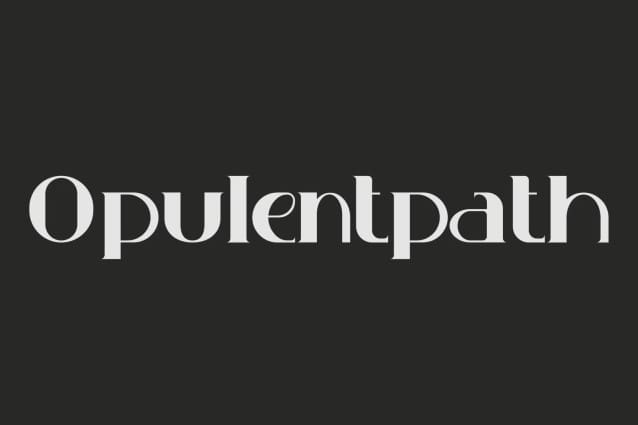
Opulentpath Font is a luxurious, specially crafted font inspired by the graceful waves of opulence. Designed to embody elegance and sophistication, it elevates any project with its sleek, refined lines. Perfect for high-end brands, Opulenpath brings a sense of prestige and exclusivity to all types of creative work.
Opulentpath Font
| Classification: | Serif Fonts |